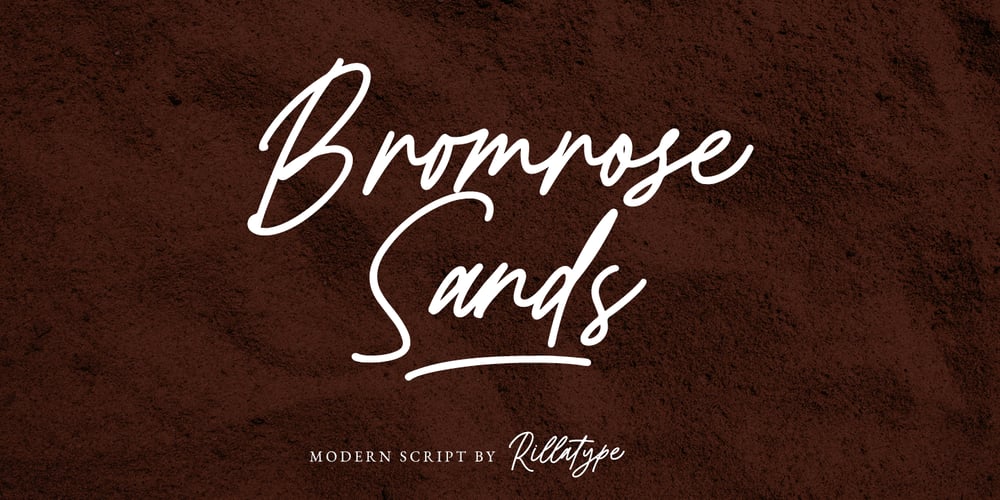
Bromrose Sands Signature Font Family was designed by Gustian Agung Asprilla and published by Rillatype. Bromrose Sands Signature contains 1 styles and family package options. Bromrose Sands Signature is a lovely signature font that comes with LOTS of ligatures that makes this font look natural. Bromrose Sands is perfect for quotes, logos, branding, magazines, wedding invitation, packaging, stationary, or any advertising purpose. To access the underline just type _+(number 1-8). Example: woodland_1woodland_2etc.